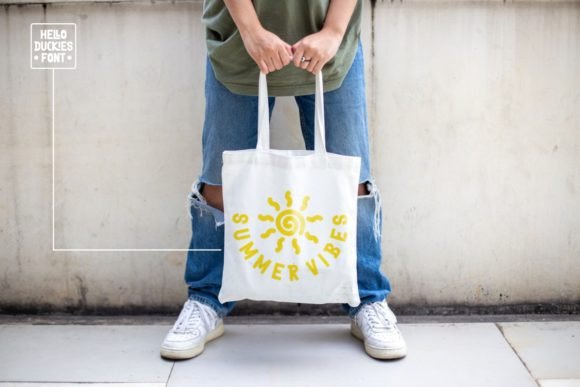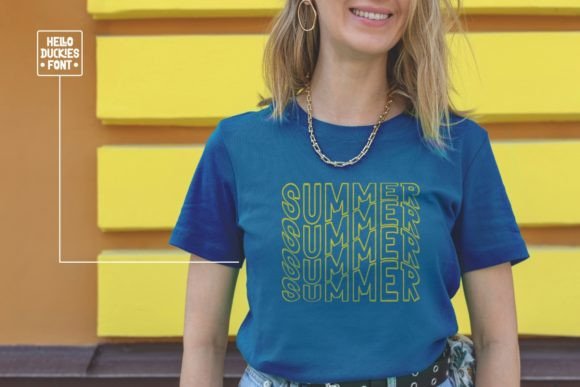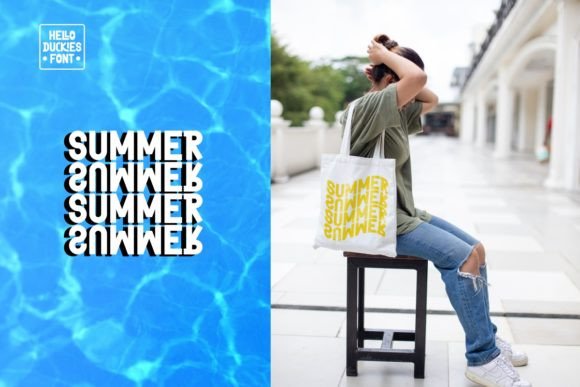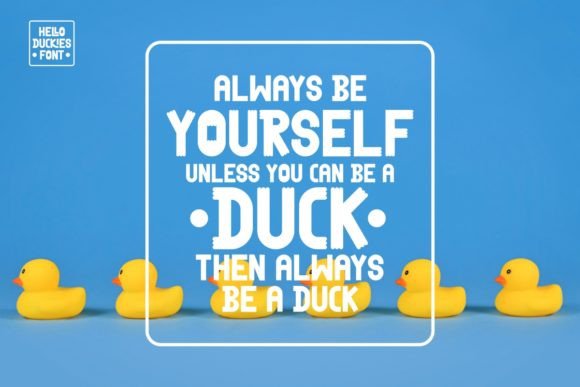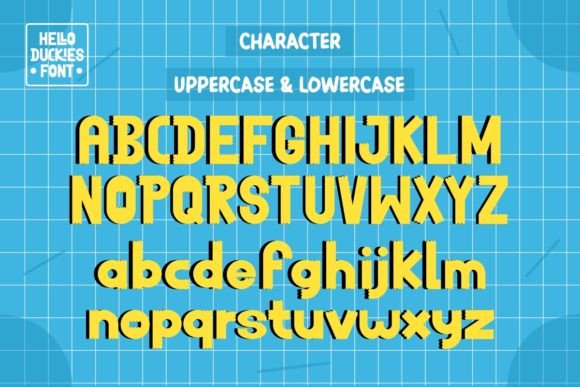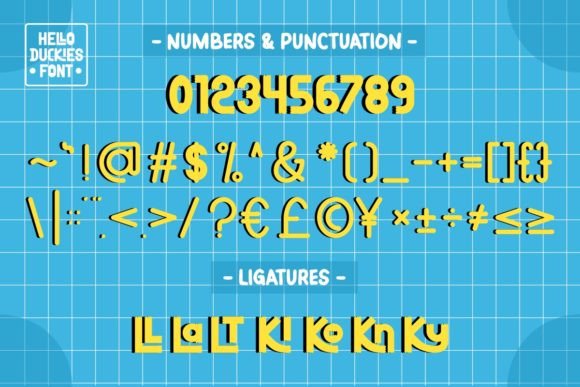
Introduction to Hello Duckies Font Font
Fonts play a crucial role in design, and the Hello Duckies Font font is a typeface that brings both character and versatility to any project. Whether you’re working on a branding project, a website, or a print design, the Hello Duckies Font font offers a unique style that can elevate your work.
Hello Duckies is an adorable and whimsical display font that brings a playful and cheerful touch to any design.
Inspired by the delightful quirkiness of rubber duckies, each letter is crafted with a sense of joy and cuteness The font captures the essence of these beloved bath toys, evoking feelings of nostalgia and lightheartedness.
Key Features of Hello Duckies Font Font
Why Choose Hello Duckies Font Font?
The Hello Duckies Font font is more than just a typeface – it’s a design tool that helps you communicate your message with style and clarity. Its unique character set and versatile design make it suitable for a wide range of applications, from elegant invitations to bold headlines.
With its carefully crafted letterforms and balanced proportions, the Hello Duckies Font font ensures readability and visual appeal across all mediums.
What makes Hello Duckies Font font special?
The Hello Duckies Font font stands out with its unique design, exceptional readability, and versatility across various design applications.